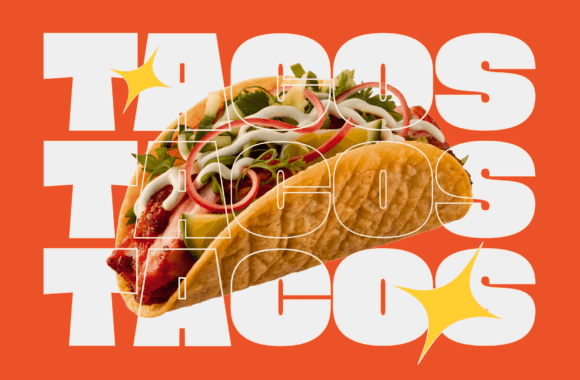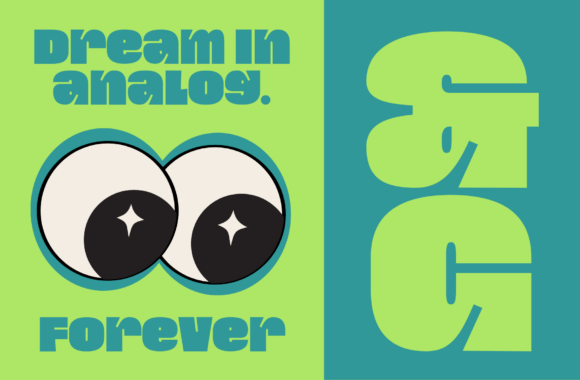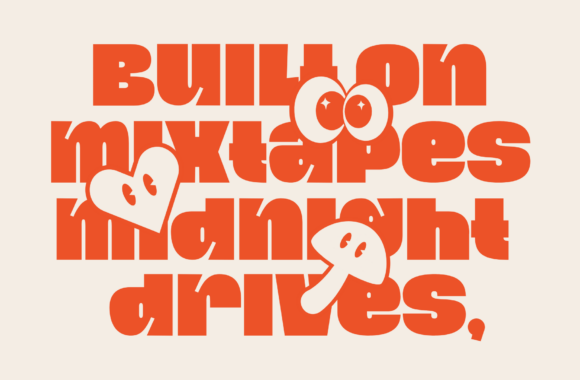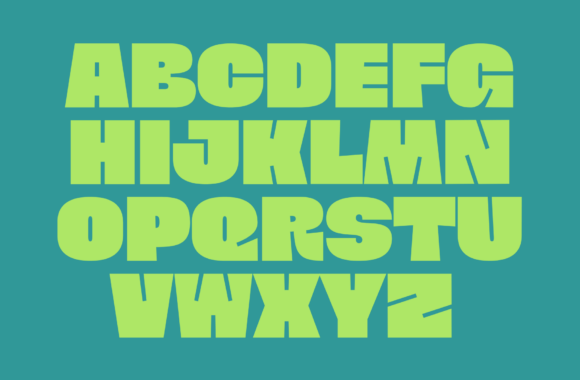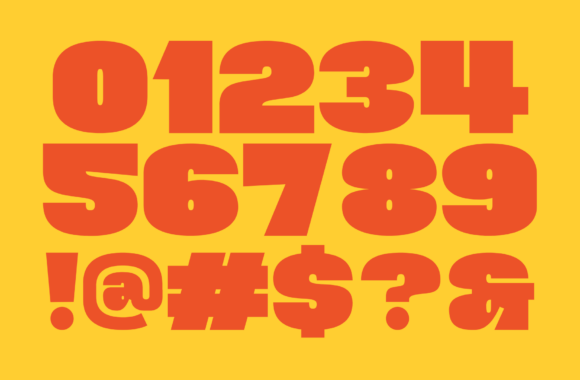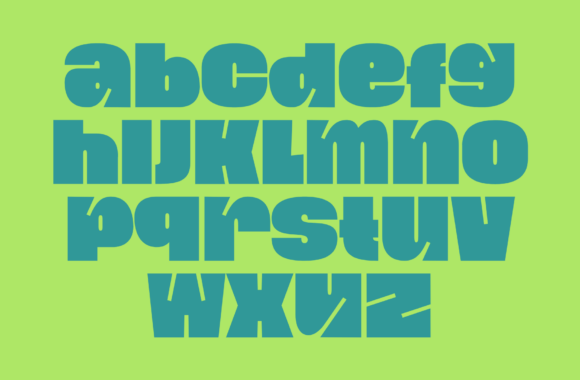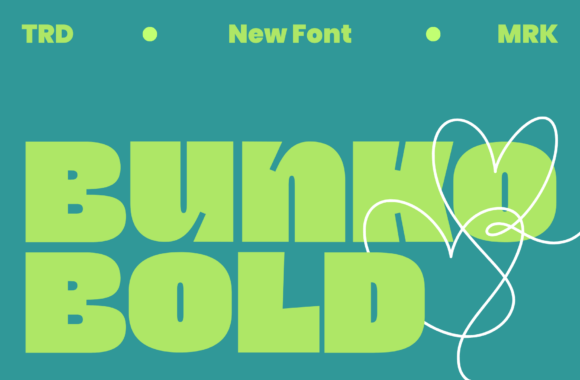
Bunko Font: The Ultimate Display Font for Creative Projects
Are you looking for a font that can add a strong and playful character to your designs? Look no further than Bunko Font, a rounded bold sans serif display font that’s perfect for a wide range of creative projects. With its heavy style and friendly shapes, Bunko strikes the perfect balance between modern aesthetics and fun personality, making it an ideal choice for designers and crafters alike.
What Makes Bunko Font So Special?
Bunko Font is a highly versatile font that’s designed to work perfectly for various creative projects, including logos, branding, posters, social media graphics, packaging, headlines, kids designs, street style visuals, and more. Its unique blend of modern and playful elements makes it an excellent choice for designers who want to create eye-catching titles or energetic branding.
Key Features of Bunko Font
- Rounded bold sans serif design: Bunko’s rounded edges and bold style give it a friendly and approachable feel that’s perfect for designs that require a playful touch.
- Strong and playful character: Bunko’s heavy style and energetic shapes make it an excellent choice for designs that require a strong and distinctive personality.
- Highly versatile: Whether you’re working on a logo, poster, or social media graphic, Bunko is a font that can adapt to any design style or theme.
- Perfect for kids designs and street style visuals: Bunko’s playful and energetic personality makes it an excellent choice for designs aimed at kids or for street style visuals that require a bold and eye-catching font.
How to Use Bunko Font in Your Designs
Bunko Font is an incredibly versatile font that can be used in a wide range of design projects. Here are some ideas to get you started:
- Logos and branding: Use Bunko to create a bold and memorable logo or brand identity that stands out from the crowd.
- Posters and flyers: Add a playful touch to your posters and flyers with Bunko’s energetic and eye-catching design.
- Social media graphics: Use Bunko to create engaging and shareable social media graphics that grab attention and drive engagement.
- Packaging design: Add a bold and playful touch to your packaging design with Bunko’s unique and distinctive style.
- Kids designs: Bunko’s playful and energetic personality makes it an excellent choice for designs aimed at kids, such as children’s books, toys, or games.
Why Choose Bunko Font?
With so many fonts available, why choose Bunko Font for your designs? Here are just a few reasons:
- Unique and distinctive style: Bunko’s bold and playful design sets it apart from other fonts, making it an excellent choice for designers who want to create something truly unique.
- Highly versatile: Whether you’re working on a logo, poster, or social media graphic, Bunko is a font that can adapt to any design style or theme.
- Easy to read: Despite its bold style, Bunko is an easy-to-read font that’s perfect for designs that require a clear and concise message.
If you’re looking for a font that can add a strong and playful character to your designs, look no further than Bunko Font. With its unique blend of modern and playful elements, Bunko is an excellent choice for designers and crafters who want to create eye-catching titles or energetic branding. Whether you’re working on a logo, poster, or social media graphic, Bunko is a highly versatile font that’s sure to make your designs stand out from the crowd.